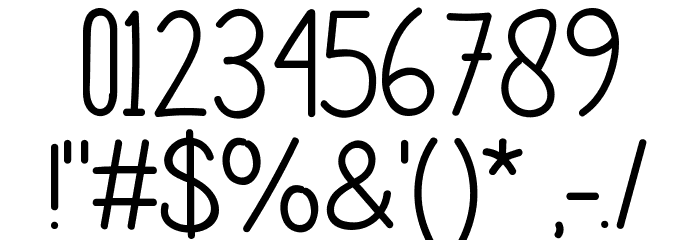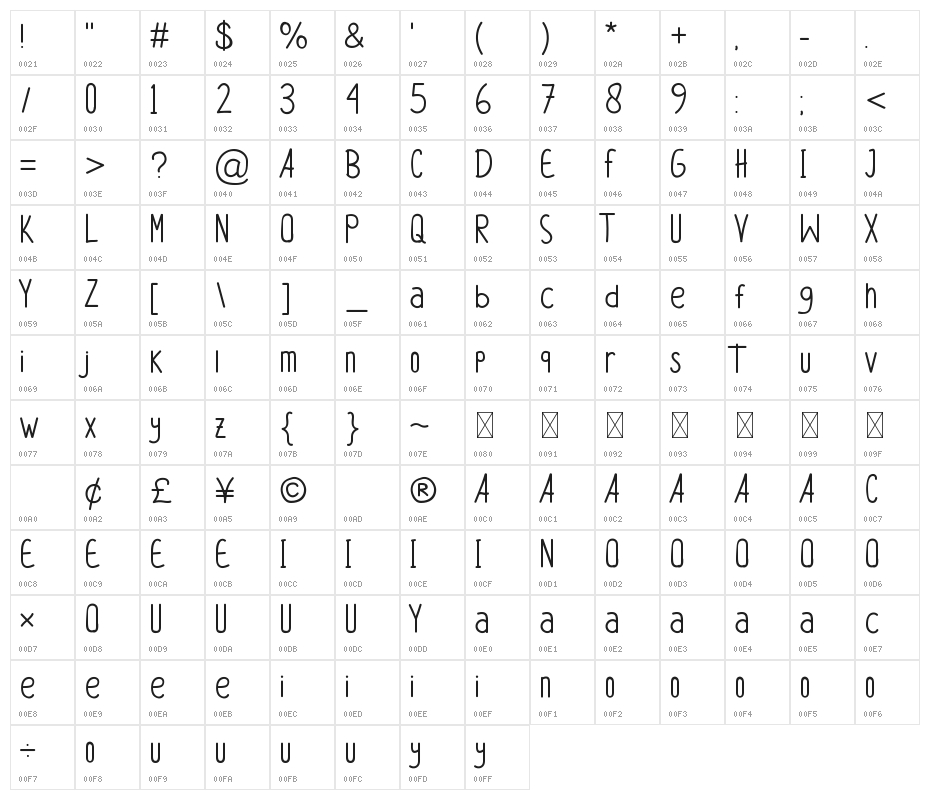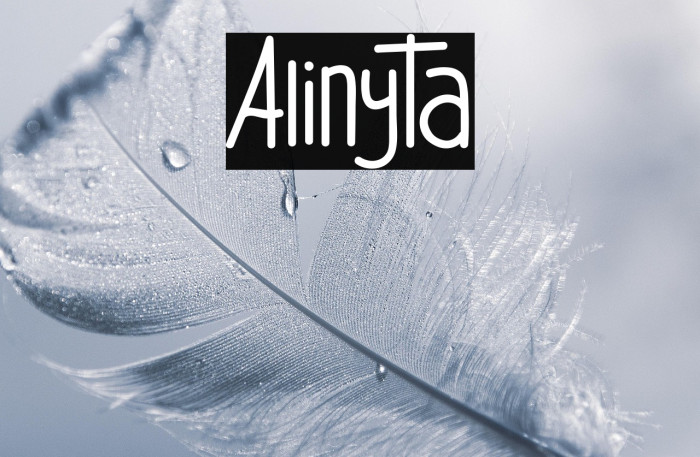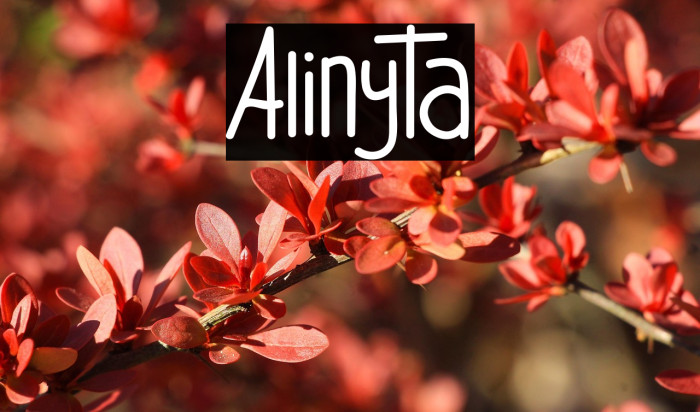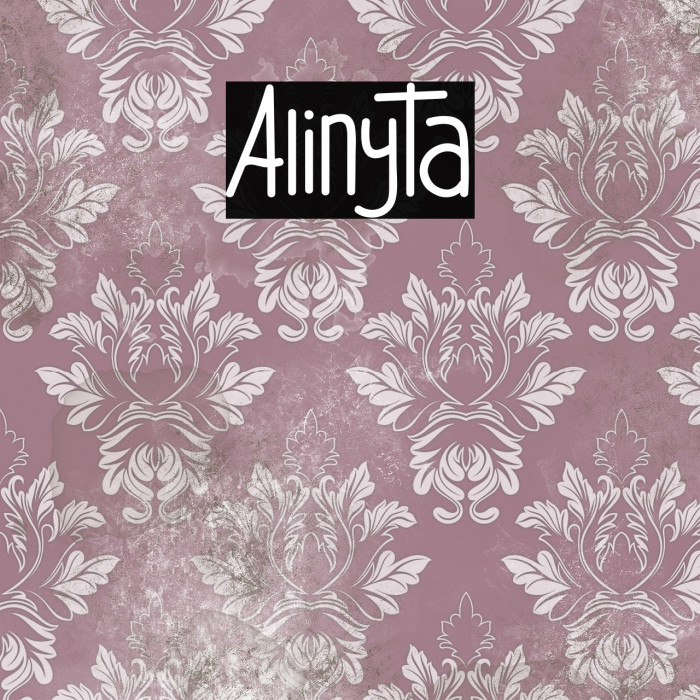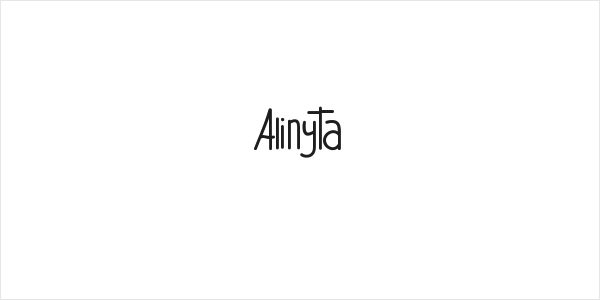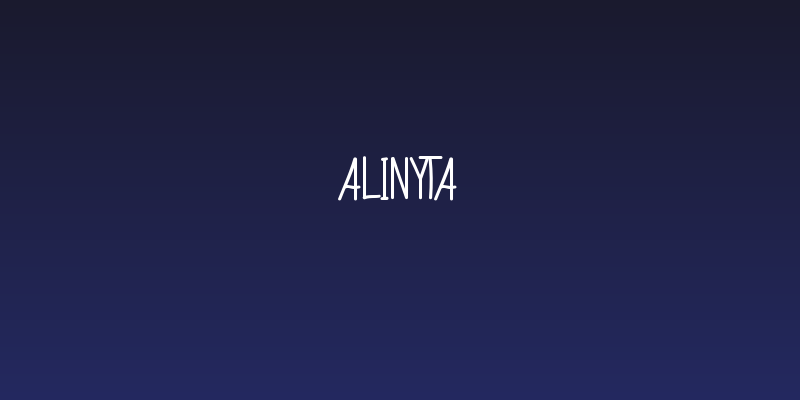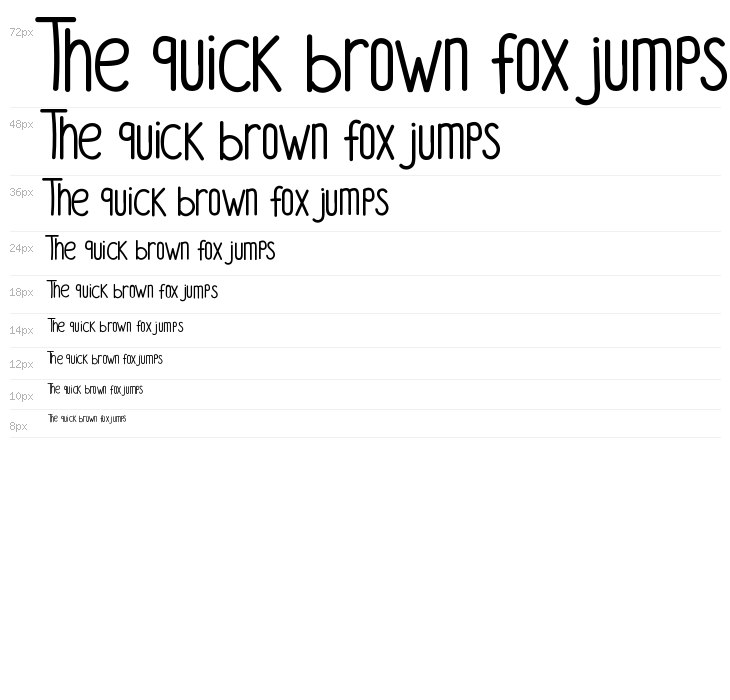
Alinyta Font
Alinyta Description
This font features a playful and casual design, characterized by its tall, narrow letterforms and rounded edges. The uppercase and lowercase letters maintain a consistent style, with a slight variation in height and width that adds a touch of whimsy. The numerals are clear and legible, following the same narrow and rounded aesthetic. Special characters are well-integrated, ensuring versatility in various applications. The overall appearance is friendly and approachable, making it suitable for informal and creative projects. Its unique style stands out while remaining easy to read, offering a balance between fun and functionality.
| Proposed Projects | Ideal for children's books, greeting cards, playful branding, and casual invitations. |